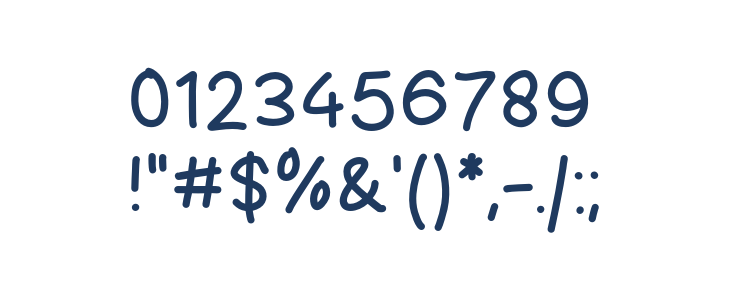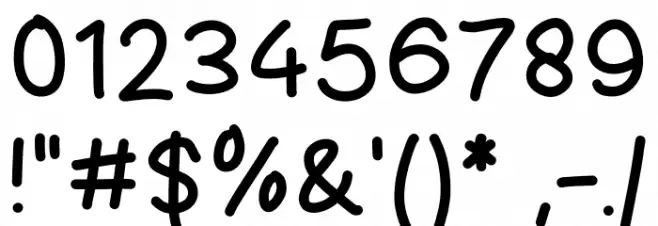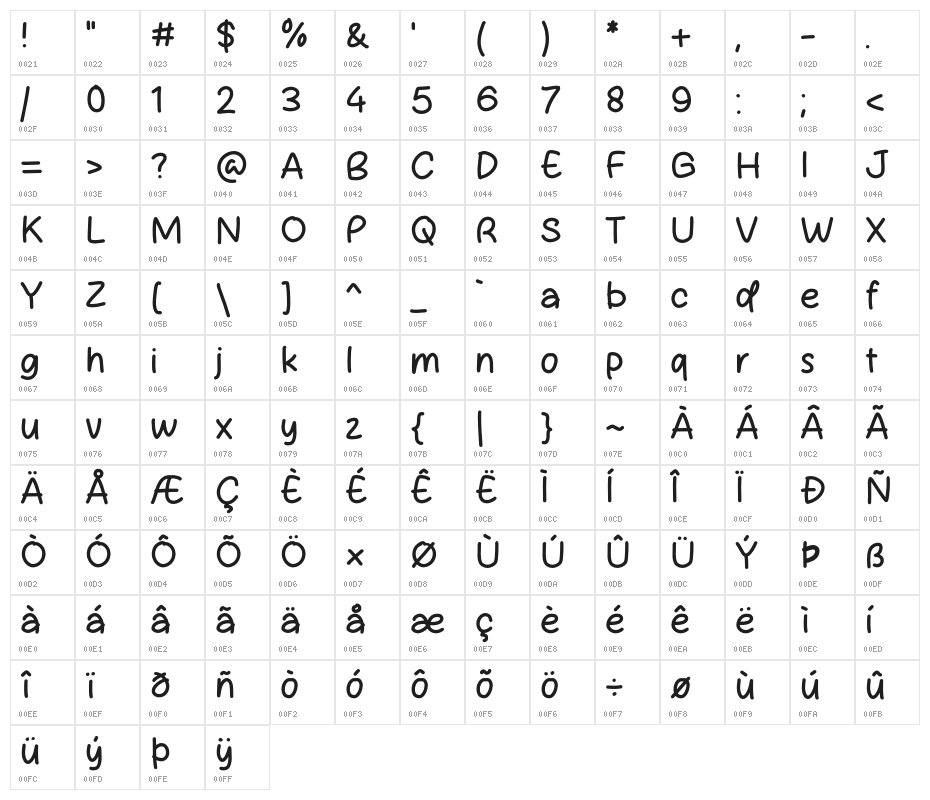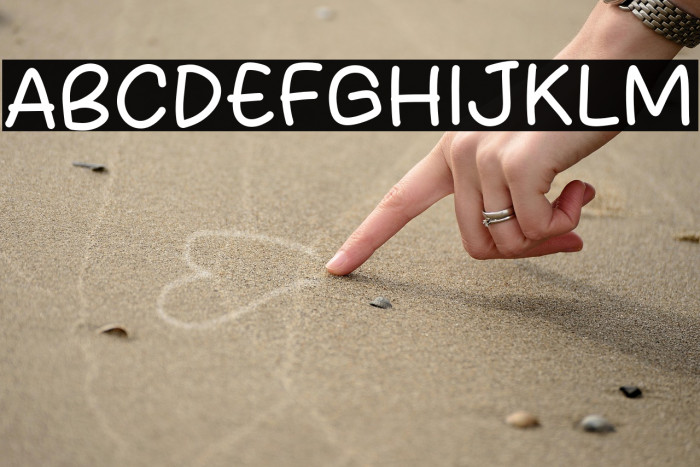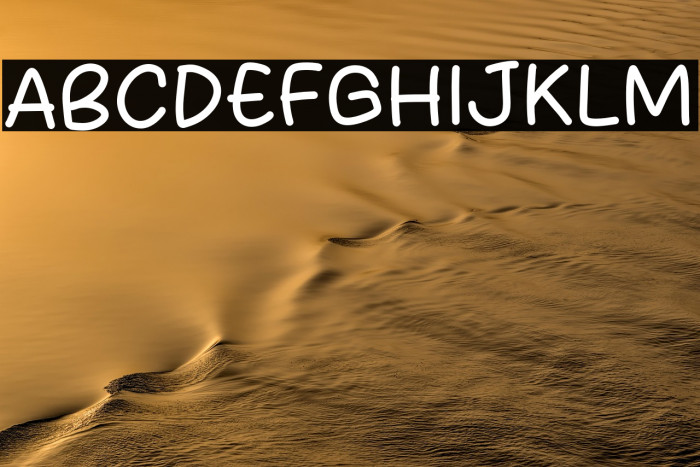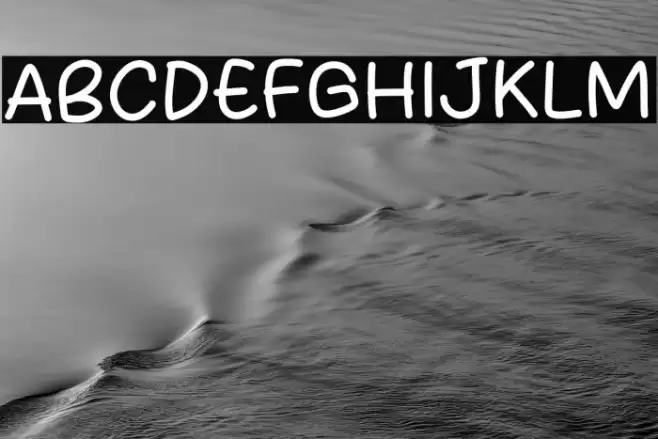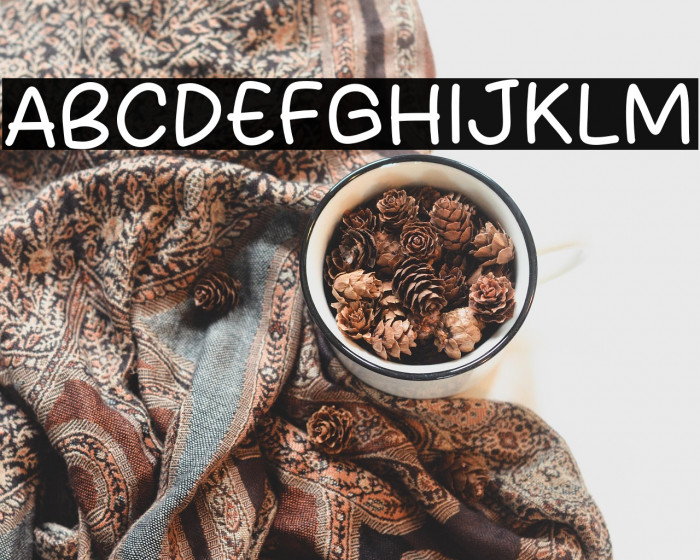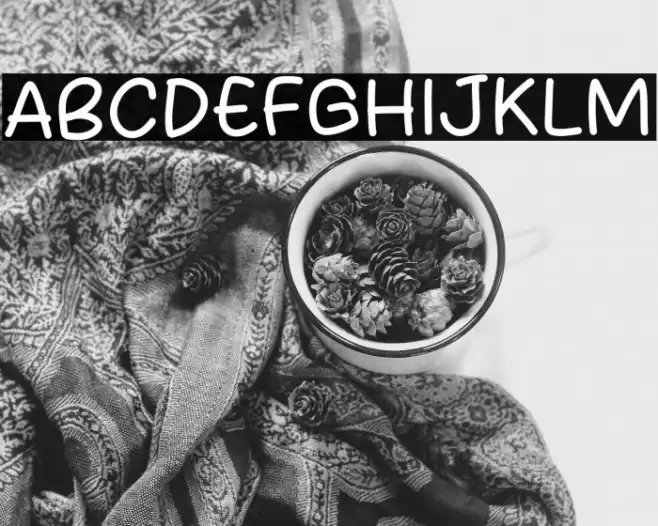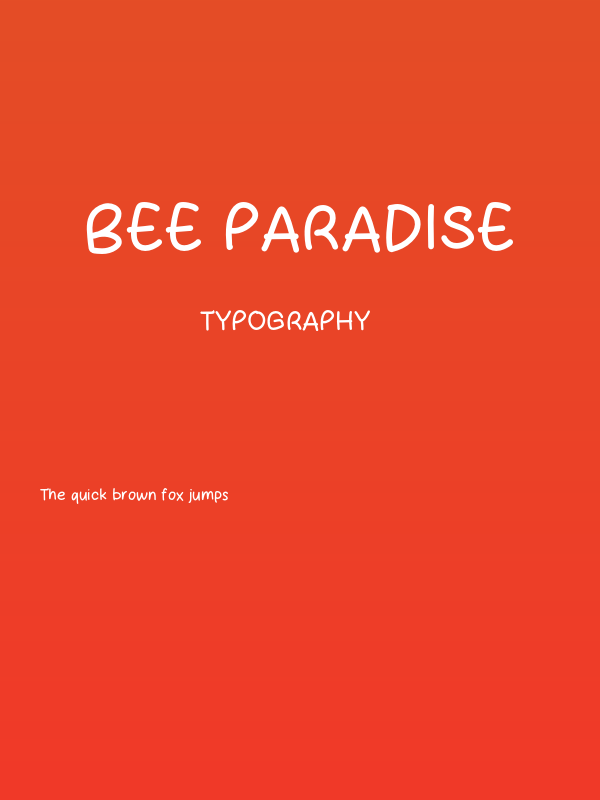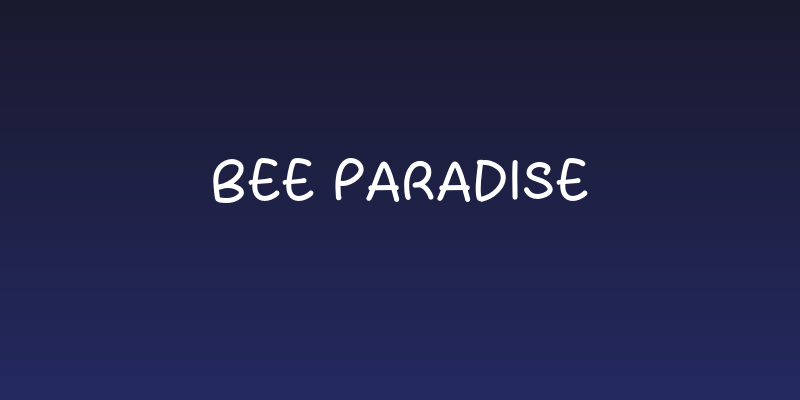
Bee Paradise Font
Bee Paradise Description
This playful and whimsical font features a handwritten style with rounded edges and a casual appearance. The characters are slightly uneven, giving it an organic and friendly feel. The uppercase and lowercase letters maintain a consistent style, with a smooth flow that mimics natural handwriting. The numbers and special characters are designed to match the overall aesthetic, ensuring a cohesive look across all text elements. This font's informal and approachable nature makes it ideal for projects that require a personal touch.
| Proposed Projects | Ideal for children's books, greeting cards, personal blogs, and playful branding projects. |